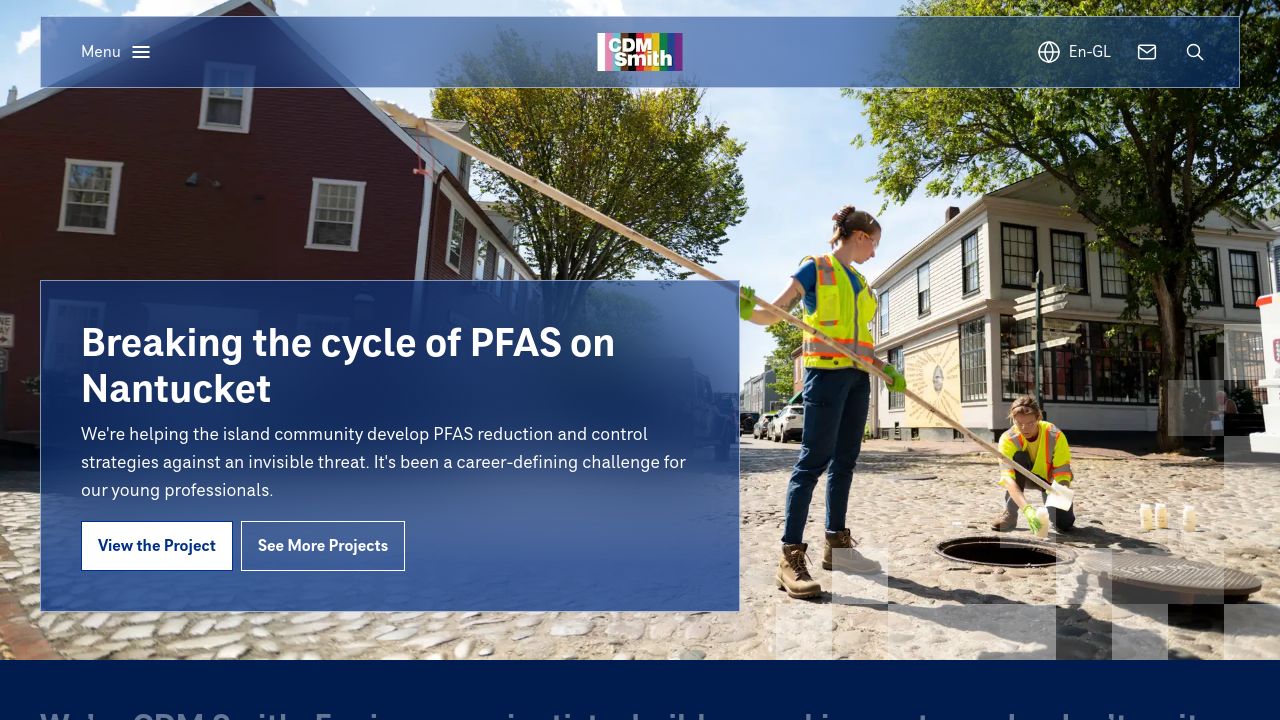
CDM Smith
At cdmsmith.com, the typography plays a vital role in conveying the brand's commitment to transforming massive datasets into actionable insights. The primary fonts, such as cdmSmith and various FontAwesome families, suggest a focus on functionality and clarity, essential for the environmental consulting industry. These custom font choices enhance the user experience by providing recognizable icons and a cohesive visual identity that resonates with their audience of experts and decision-makers.
cdmsmith.com primarily uses custom fonts like cdmSmith, along with various FontAwesome families, including FontAwesome 5 Free and FontAwesome 7 Brands.
The fonts on cdmsmith.com, particularly the custom cdmSmith and FontAwesome families, offer a unique identity tailored for their industry, unlike more generic alternatives.
The fonts used on cdmsmith.com include various weights such as 400 for most FontAwesome styles and 900 for FontAwesomeSolid, providing versatility in design.